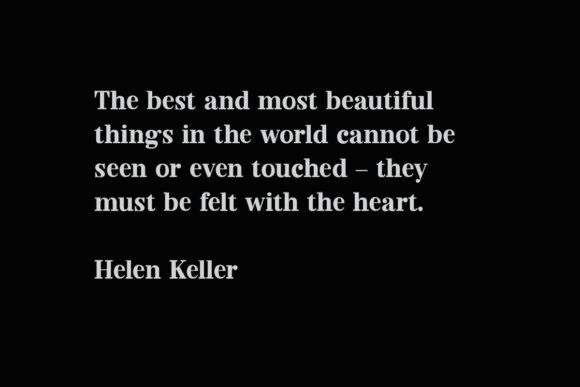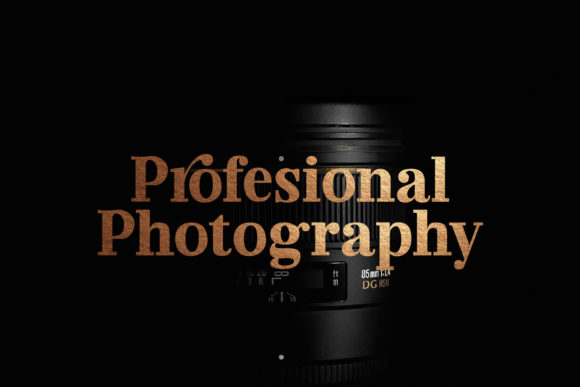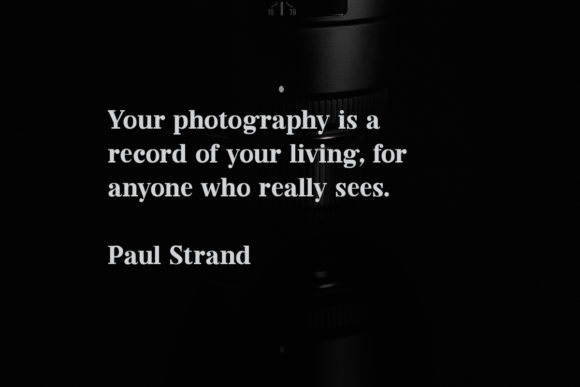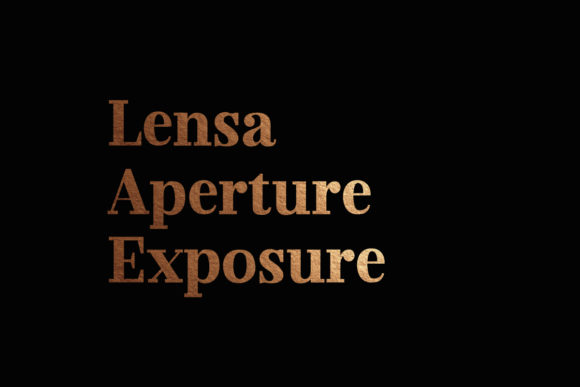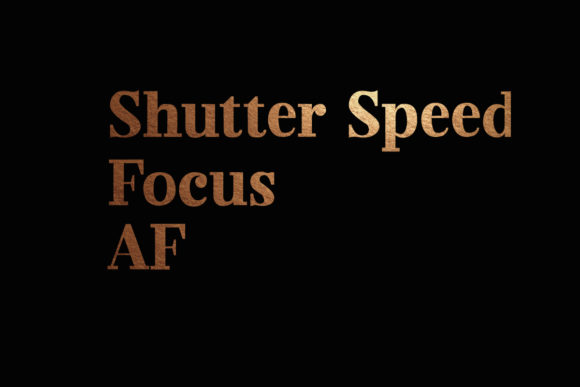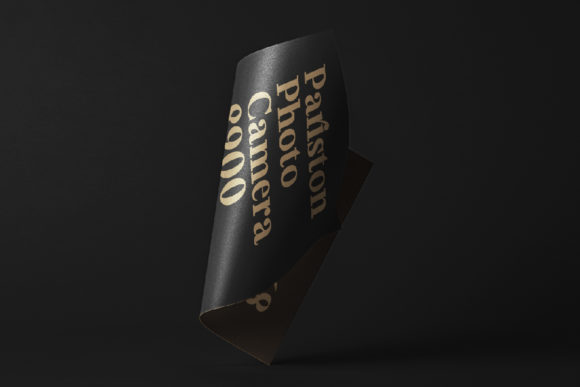
Introduction to Pariston Font
Have you ever found yourself staring at a blank page, searching for the perfect font to bring your creative project to life? It’s a feeling we’ve all experienced at some point, and it’s what makes discovering a new, versatile font like the Pariston Font so exciting.
As a go-to design resource, the Pariston Font is perfect for those moments when you need a clean and elegant font to elevate your design. With its minimal, yet sophisticated style, this serif font is suitable for a wide range of designs, from modern websites to traditional print materials.
Whether you’re working on a high-quality design for a client or creating something for fun, the Pariston Font is an excellent choice. Its simplicity makes it easy to pair with other fonts, and its transparent background allows for seamless integration into any design. Plus, it’s available for a free download, making it a valuable resource for designers of all levels.
Key Features of Pariston Font
- High-quality design resource suitable for various creative projects, including graphic design, digital art, and more.
- Designed with attention to detail and a focus on aesthetics, Pariston Font is a unique and versatile addition to any design library.
- Perfect for use in logos, branding materials, and other visual identity elements, thanks to its clean and modern design.
Honest Review: Pariston Font
I recently had the opportunity to work with the Pariston Font on a creative project and I must say, it was a great experience. This free download font has been a game-changer for my design resource library.
- ✨ High-quality typography: The Pariston Font boasts beautiful and elegant typography that adds a touch of sophistication to any design.
- ✨ Transparent background: The font’s transparent background makes it easy to layer and combine with other design elements.
- ✨ Versatility: The font is suitable for a wide range of creative projects, from business cards to posters and even digital interfaces.
- ⚠️ Limited font styles: The Pariston Font only comes in a few styles, which may not be enough for designers who require a wide range of font options.
- ⚠️ No bold or italic versions: The font does not include bold or italic versions, which may limit its use in certain design contexts.
Overall, I’m impressed with the Pariston Font’s quality and versatility. While it has some limitations, it’s still a valuable addition to any design resource library. I would definitely recommend it to designers who are looking for a high-quality, free download font.
Pariston Font
The Pariston Font is a versatile and stylish design resource ideal for various creative projects. Its high-quality design and transparent background make it a popular choice among designers.
Getting the Most Out of Pariston Font
To get the most out of the Pariston Font, experiment with different font sizes, colors, and styles. You can also use it in combination with other design elements to create unique and eye-catching designs.
The Pariston Font is suitable for a wide range of creative projects, including logos, business cards, brochures, and social media graphics. Its high-quality design and transparent background make it a popular choice among designers.